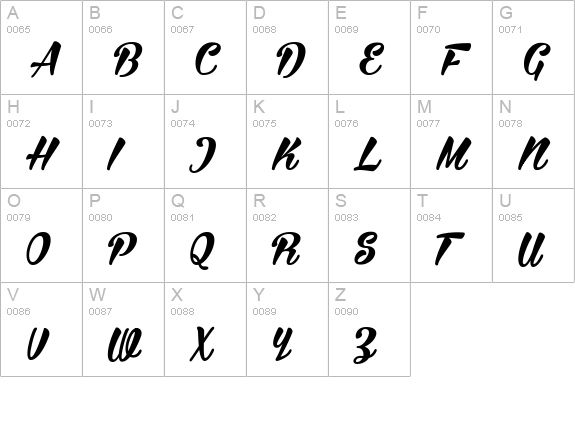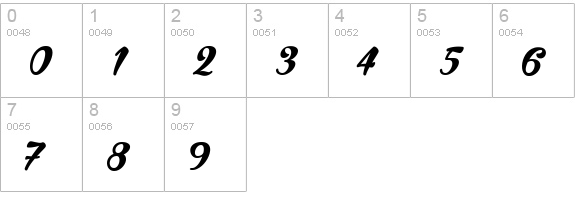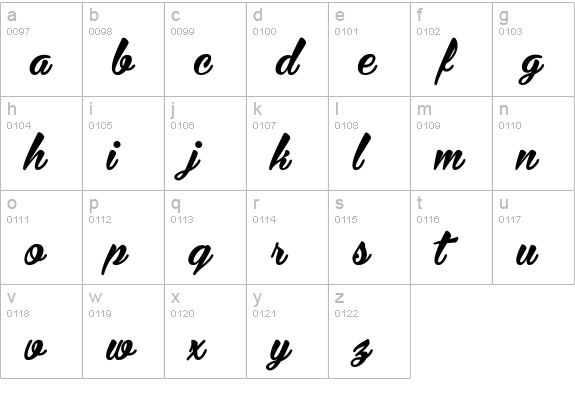
Bira - PERSONAL USE ONLY Font Details
Introducing Bira - a captivating and versatile font that perfectly embodies modernity and elegance. With its clean lines and contemporary aesthetics, Bira effortlessly adds a touch of sophistication to any design project. Whether you're creating a logo, designing a website, or crafting eye-catching social media posts, Bira is the perfect choice to make your message stand out. This stunning font offers a wide range of weights and styles, allowing you to unleash your creativity and bring your vision to life. From sleek and minimalistic to bold and impactful, Bira offers endless possibilities to suit your design needs. Its carefully crafted letterforms exude a sense of professionalism and refinement, making it ideal for both personal and professional projects. But the best part? Bira is completely free! That's right, you can download this exceptional font at no cost from FontsMarket.com. Unlock the power of Bira and elevate your designs without breaking the bank. With its freely available download, Bira makes high-quality typography accessible to everyone, regardless of budget or resources. With Bira, you can confidently create stunning visuals that leave a lasting impression. Its distinctive and timeless style will captivate your audience and effortlessly elevate your design to new heights. So why wait? Embrace the power of Bira and let your creativity shine. Download this exceptional font for free at FontsMarket.com and unlock a world of design possibilities today.